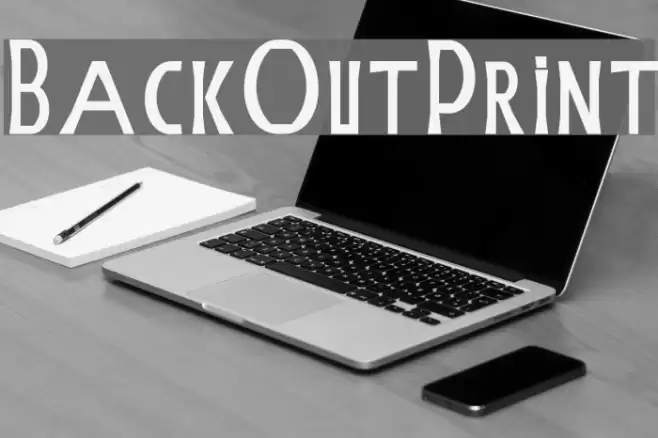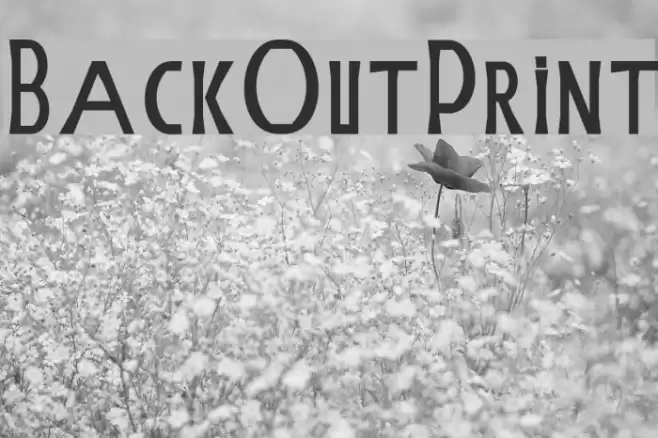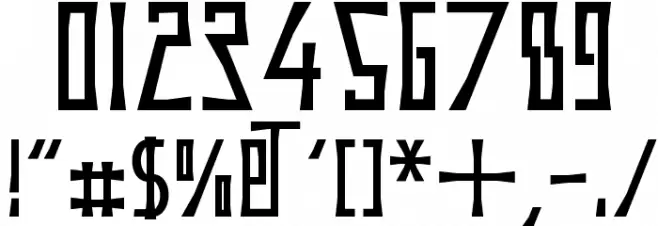
BackOutPrint Font
BackOutPrint Description
This font features a unique and artistic design with a modern twist. The characters are bold and slightly condensed, giving them a strong presence. The uppercase letters have a distinct angular style, while the lowercase letters maintain a consistent look with subtle variations. The numbers are stylized with sharp edges, adding to the overall dynamic appearance. Special characters are creatively designed, enhancing the font's decorative appeal. This font is ideal for projects that require a bold and eye-catching typeface.
A bold, angular font with a modern and artistic style from Uncategorized fonts.
- Proposed Projects: Ideal for posters, branding, headlines, and any project needing a striking and artistic typeface.